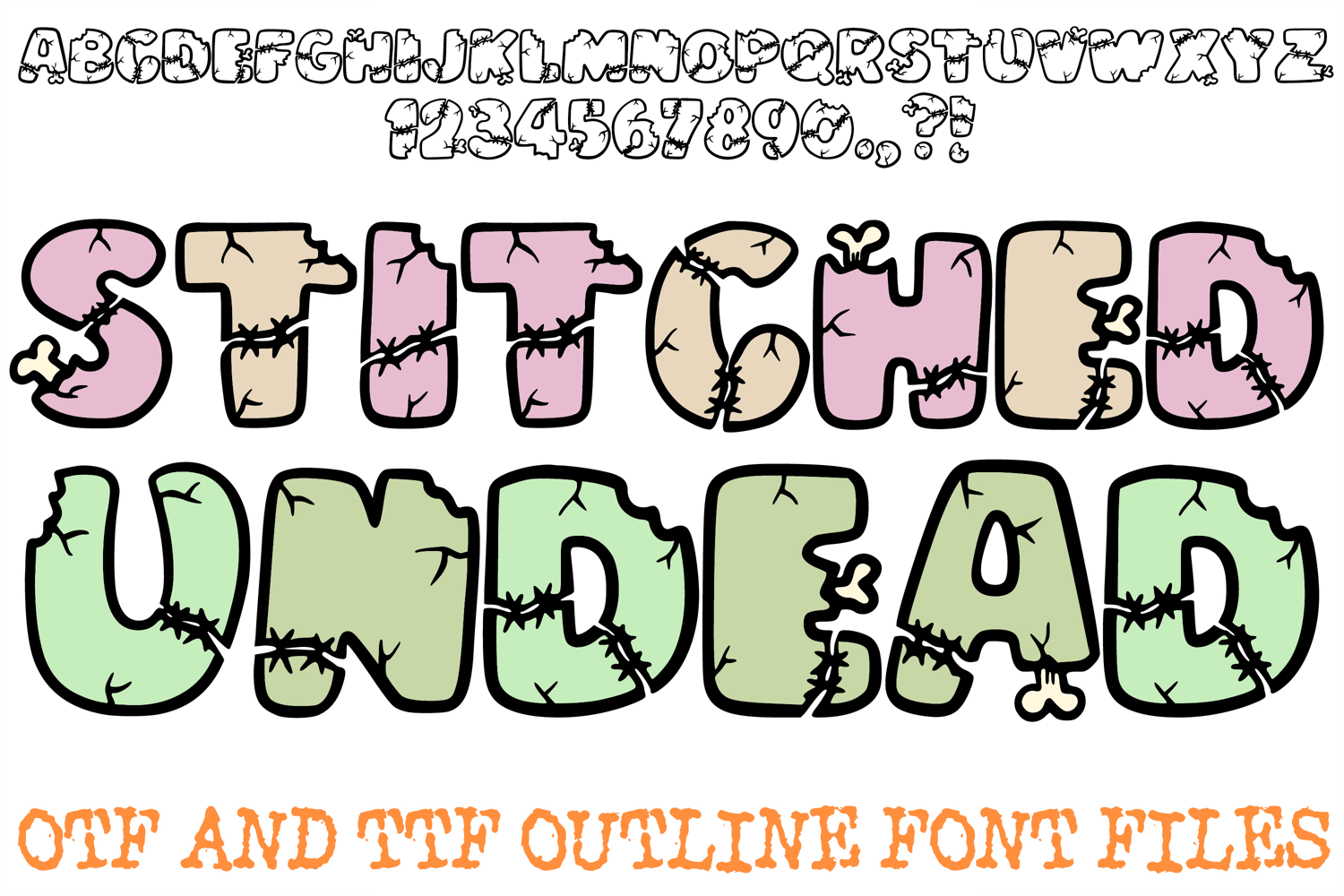
Stitched Undead Lettering Font Cartoon Halloween ABC OTF Type by Squeeb Creative
Stitched Undead Lettering Font Cartoon Halloween ABC OTF
The Stitched Undead Font is a bold, reanimated display typeface featuring thick, rounded letterforms…